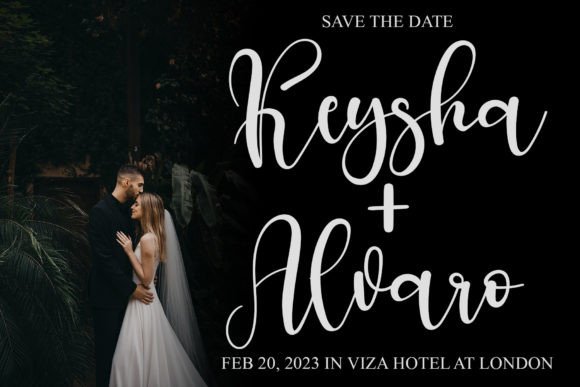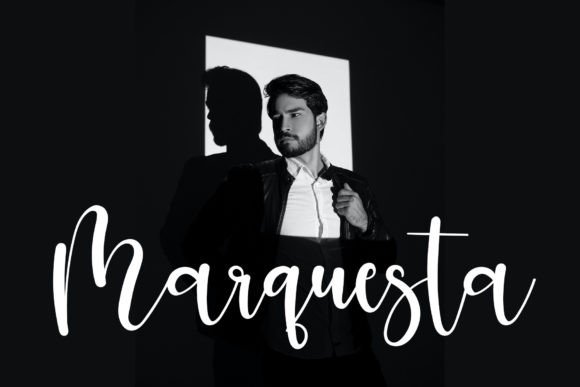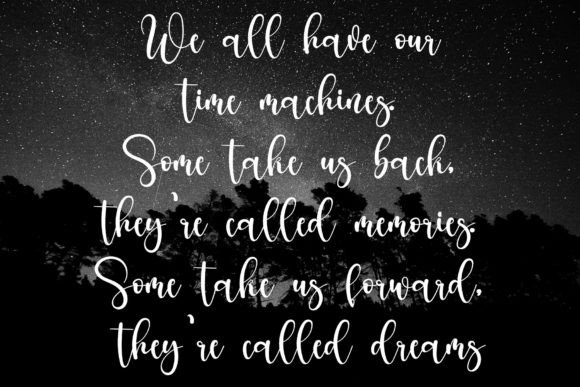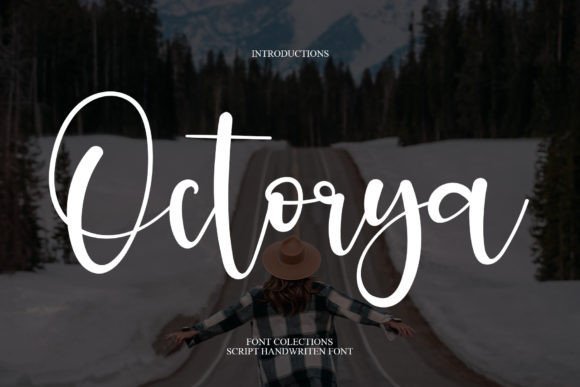
Introduction to Octorya Font
Octorya is a delicate, elegant, and flowing handwritten font.
It has beautiful and well-balanced characters and as a result, it matches a wide pool of designs Add it to your most creative ideas and notice how it makes them come alive.
Octorya Font offers exceptional quality and versatility, making it a valuable addition to your design toolkit. Whether you’re creating for personal projects or commercial use, Octorya Font delivers professional results.